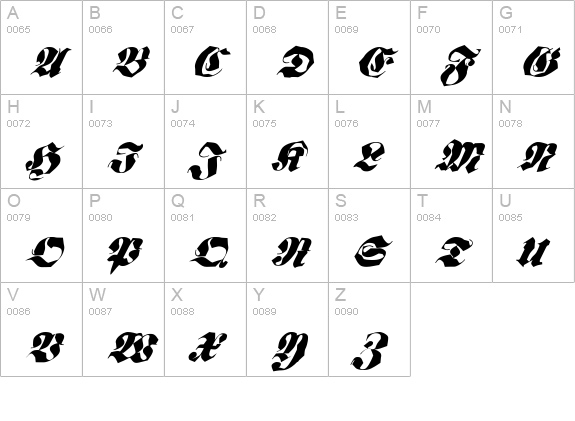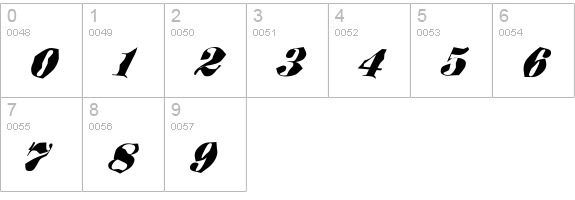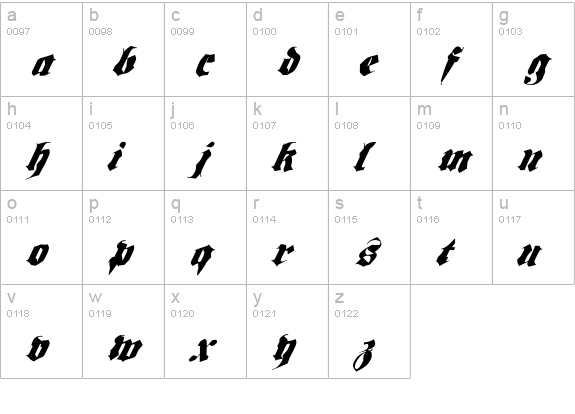
Frakt font is a stunning display typeface that exudes elegance and sophistication. With its sharp, angular lines and intricate details, Frakt font is perfect for creating eye-catching designs that demand attention. Whether you're designing a poster, logo, or website, this typeface will add a touch of class to your project. What sets Frakt font apart is its unique combination of traditional elements with a modern twist. The timeless appeal of Frakt font makes it a versatile choice for a wide range of design applications. Best of all, Frakt font is available for free download at FontsMarket.com. This means you can access this exquisite typeface without any cost, making it an excellent choice for both personal and commercial projects. Don't miss out on the opportunity to enhance your designs with the beauty and sophistication of Frakt font. Download it today and see the difference it can make in your work.